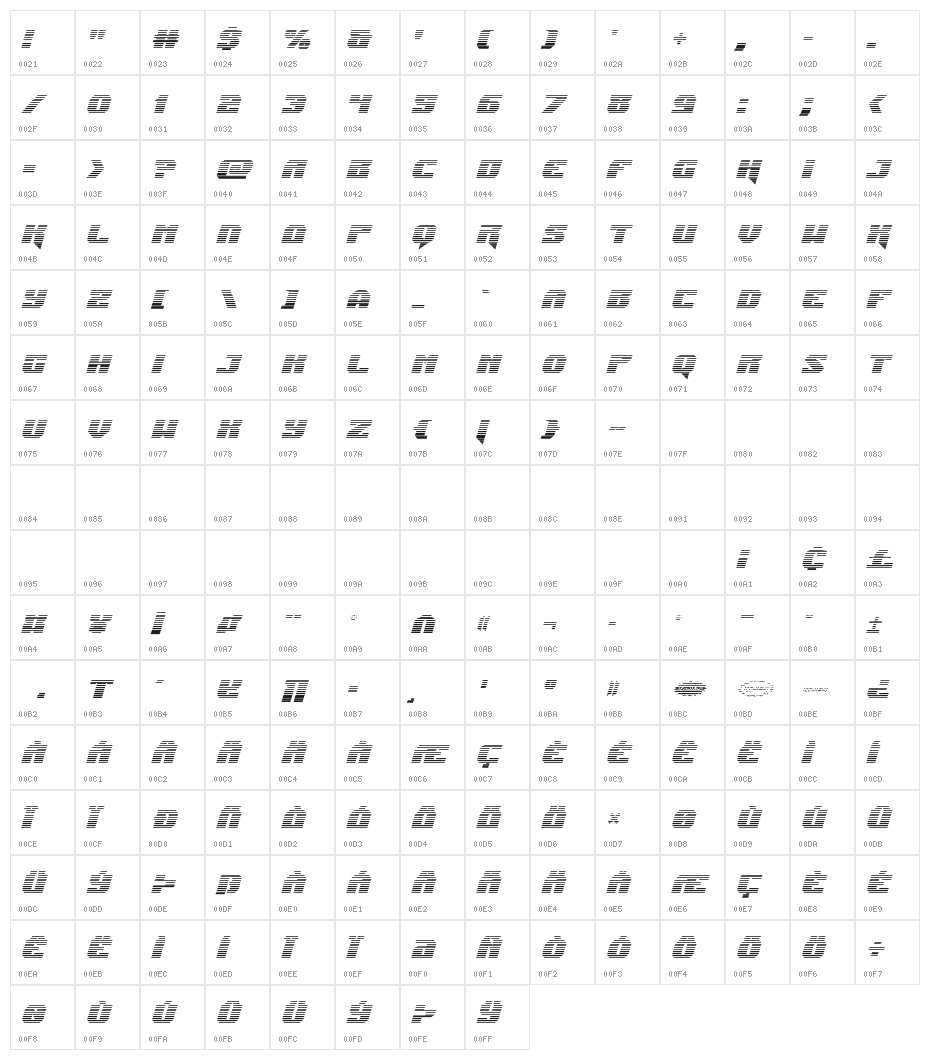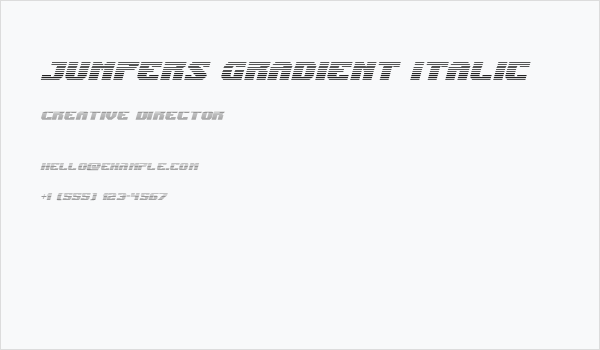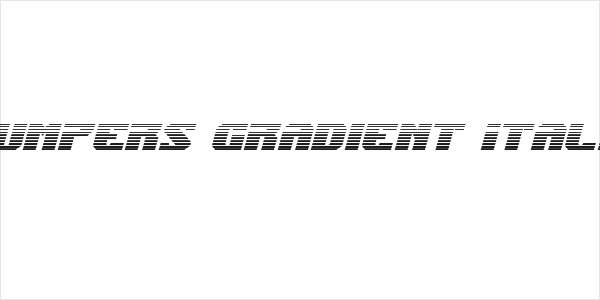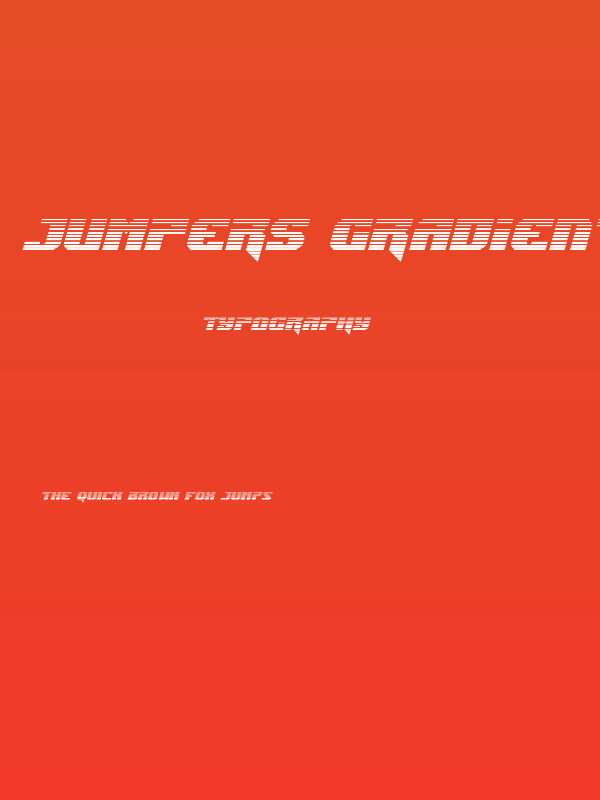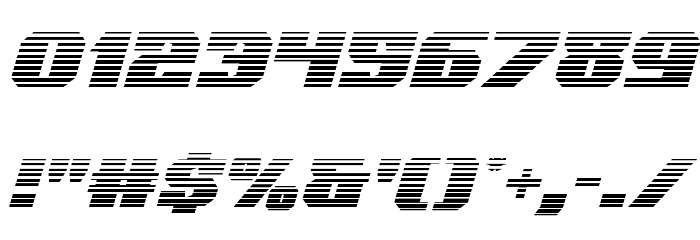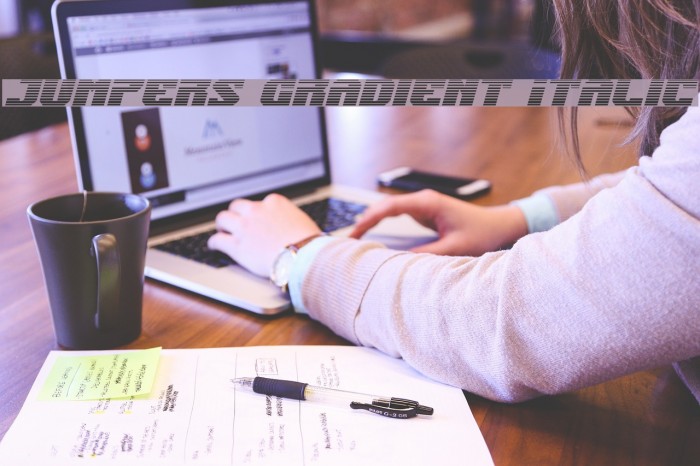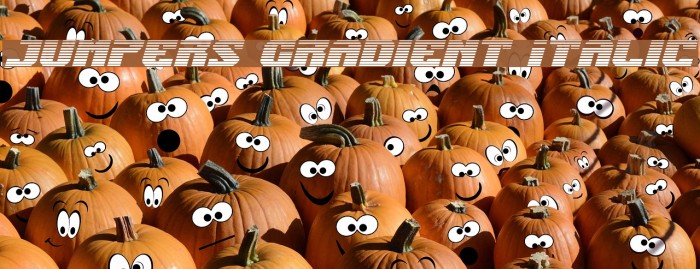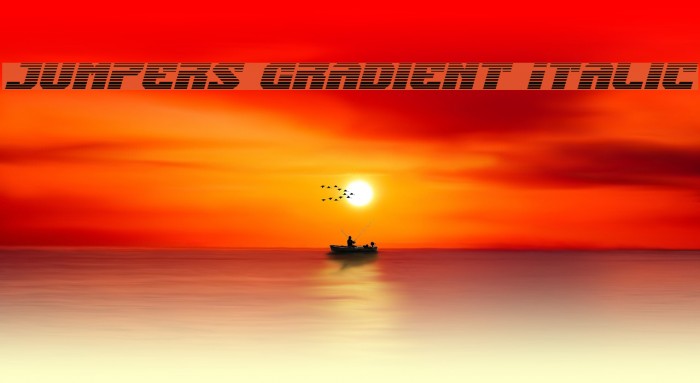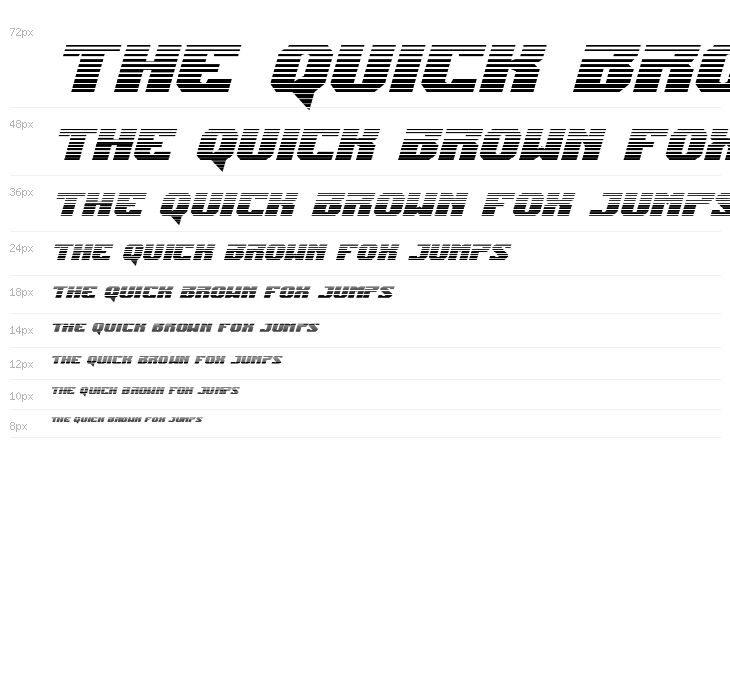
Jumpers Gradient Italic Font
Jumpers Gradient Italic Description
This font features a bold, dynamic design with a distinct gradient effect created by horizontal lines that give it a sense of motion and energy. The italicized style adds a forward-leaning slant, enhancing its modern and futuristic appeal. Each character is constructed with sharp, angular edges, contributing to a strong, impactful presence. The uppercase and lowercase letters maintain a consistent style, while the numerals and special characters are crafted to match the overall aesthetic. This font is ideal for projects that require a bold statement and a contemporary look.
| Proposed Projects | Ideal for sports branding, futuristic designs, tech-related projects, and dynamic advertising. |